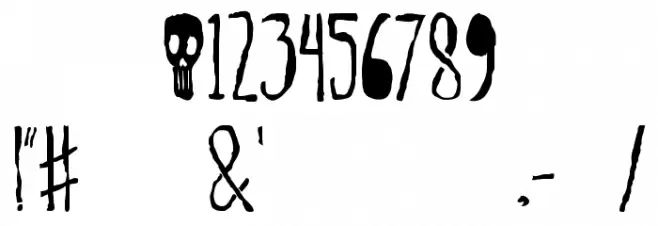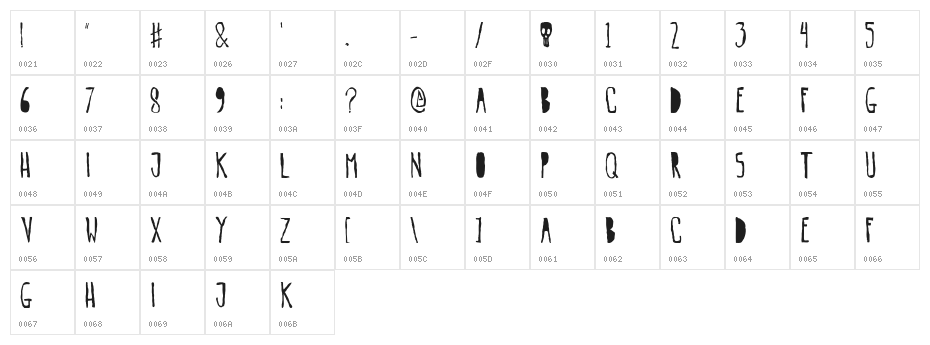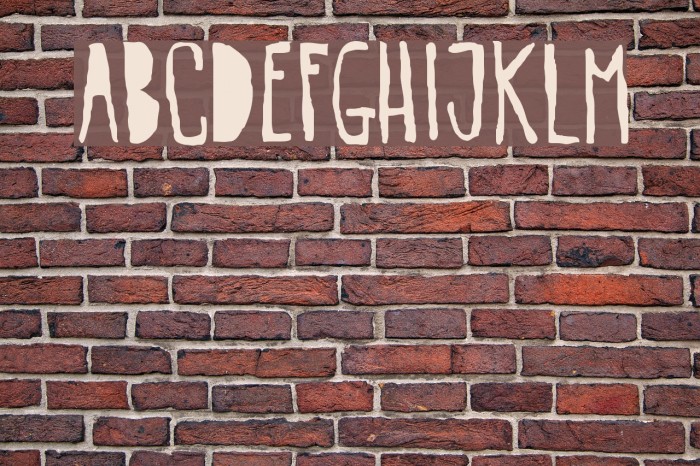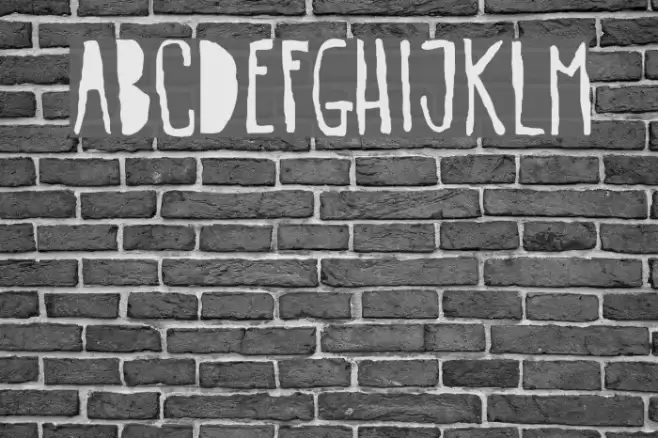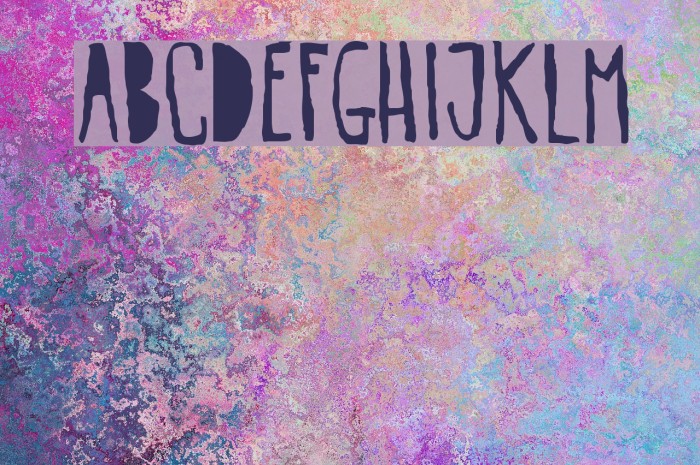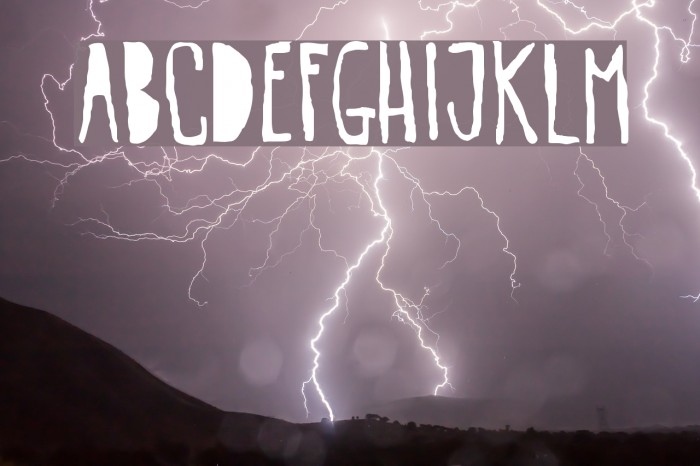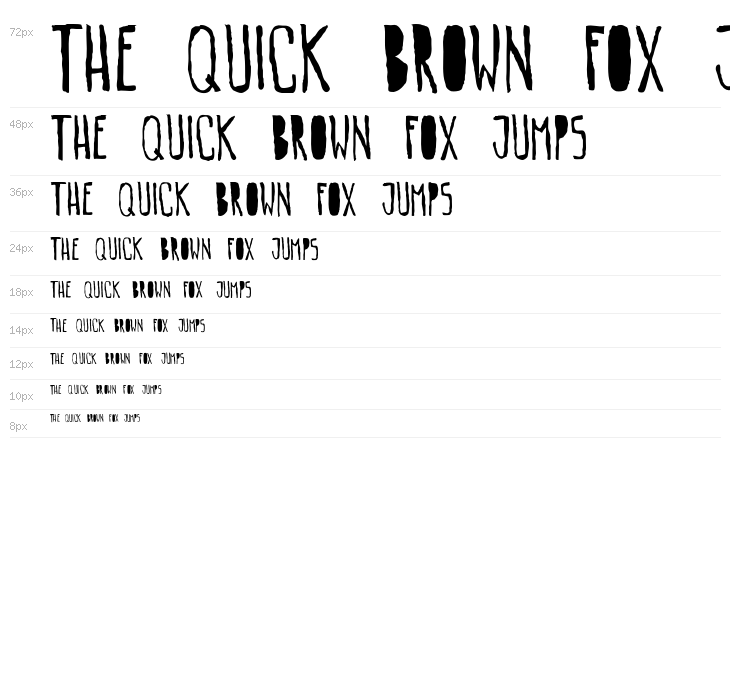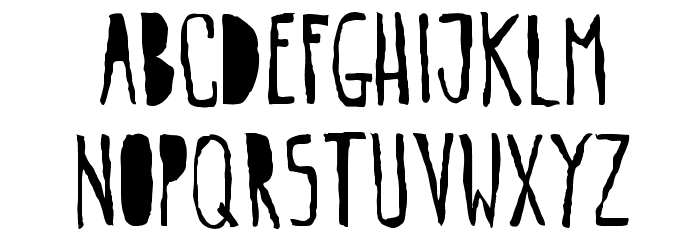
gogozombie Font
gogozombie Description
This font features a unique, hand-drawn style with an eerie, slightly distorted appearance. The uppercase letters are bold and irregular, giving a sense of movement and unpredictability. The lowercase letters follow a similar pattern, maintaining the quirky, uneven strokes. Numbers are creatively designed, with some incorporating thematic elements like a skull. Special characters are also stylized to match the overall spooky aesthetic. The font's rough edges and varied line thickness contribute to its unsettling, zombie-like vibe, making it perfect for Halloween-themed projects or anything requiring a touch of the macabre.
| Use Case | Headlines, Posters, Themed Events |
| Proposed Projects | Ideal for Halloween invitations, horror movie posters, themed party decorations, or any project needing a creepy, unsettling vibe. |